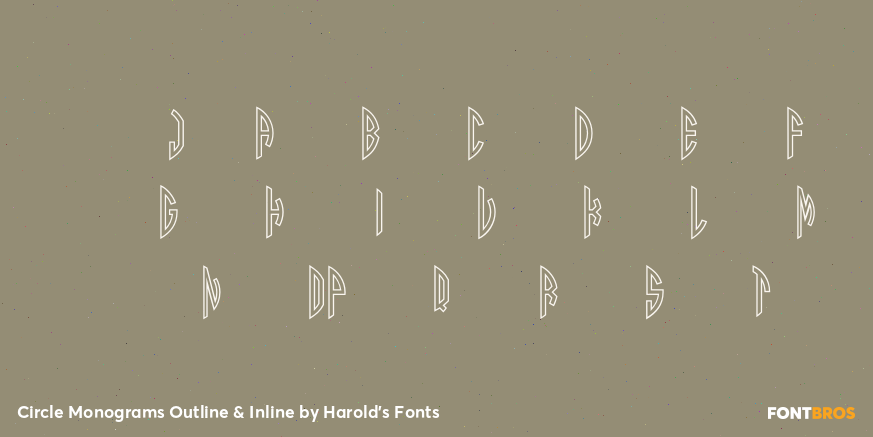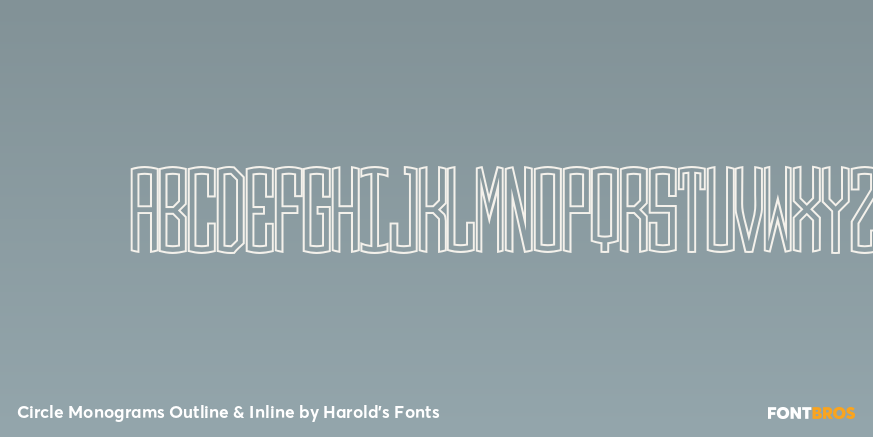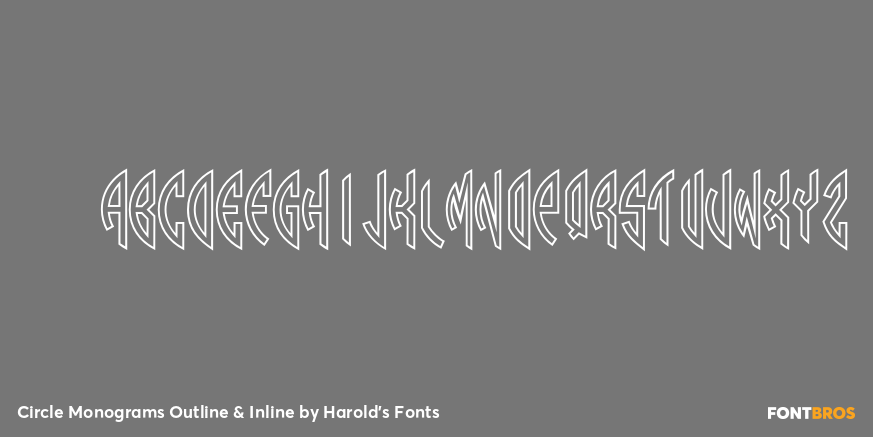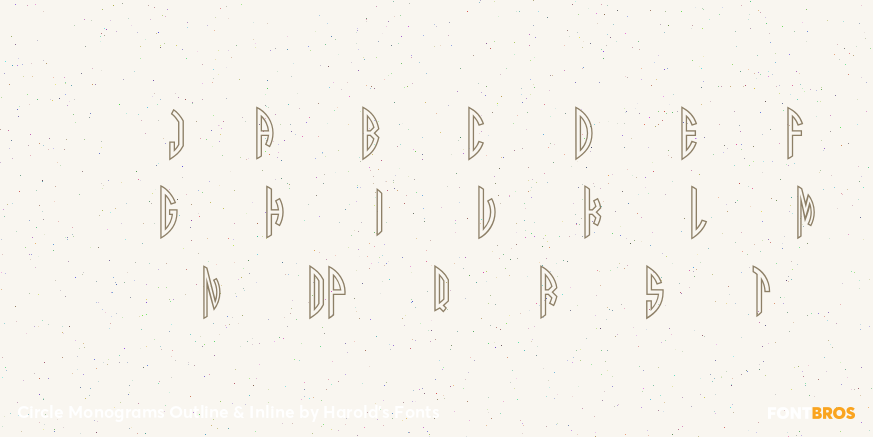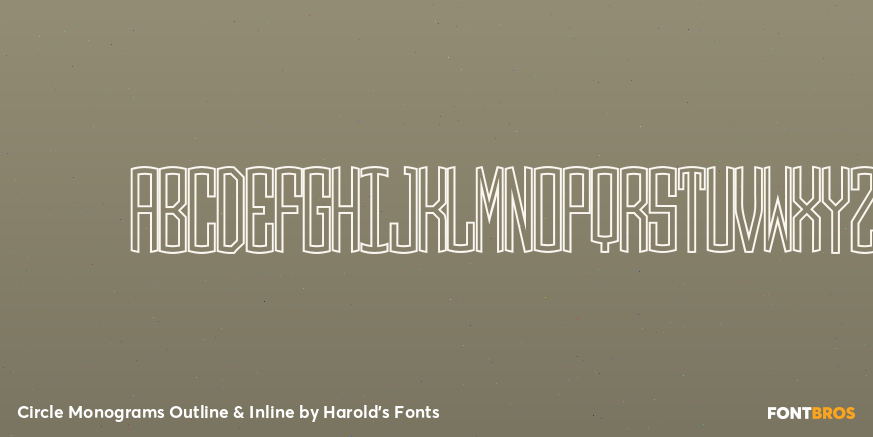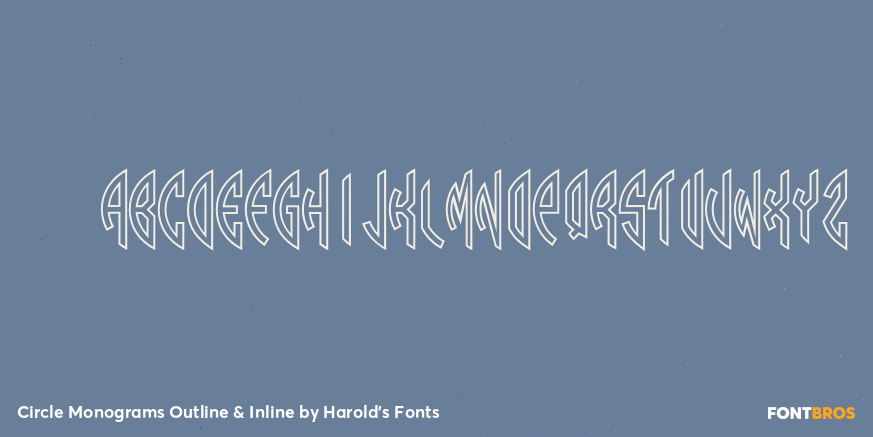
Circle Monograms Outline & Inline
Font Family by Harold's Fonts
The set of four Circle Monograms fonts lets you create custom 2- and 3-letter monograms, against a black or white background, with a choice of decorative frames. And now each letter is accented with a decorative Outline or Inline. Mix and match these fonts; also works with regular Circle Monograms with white backgrounds.